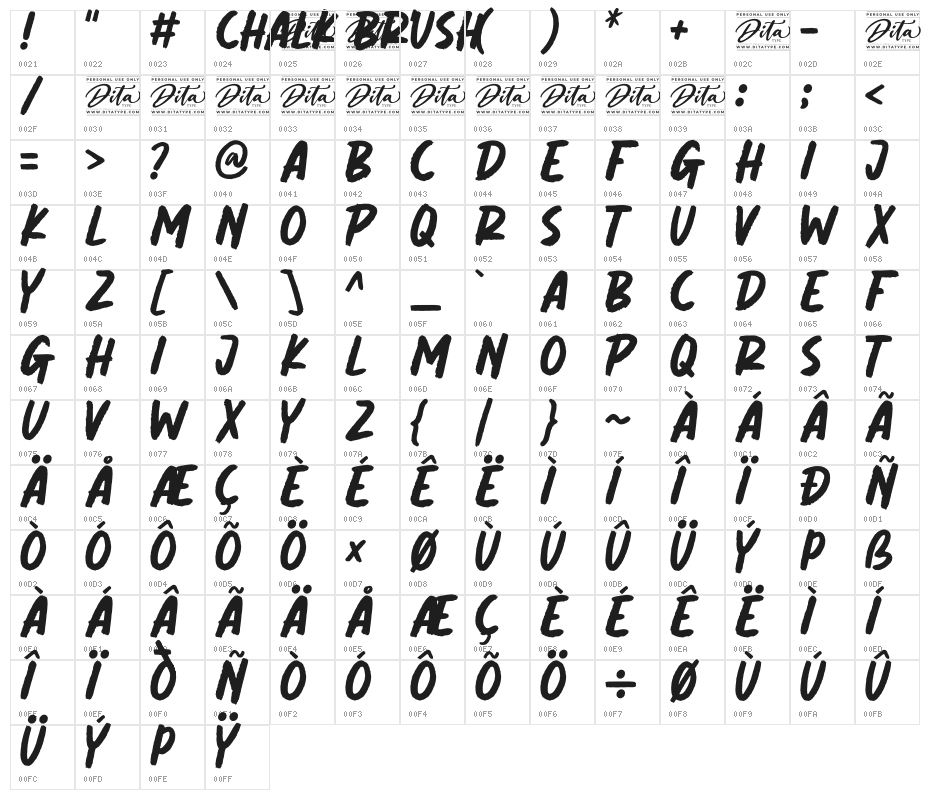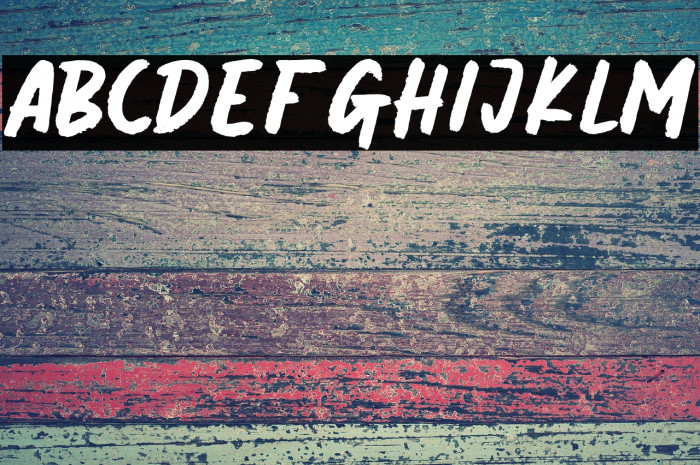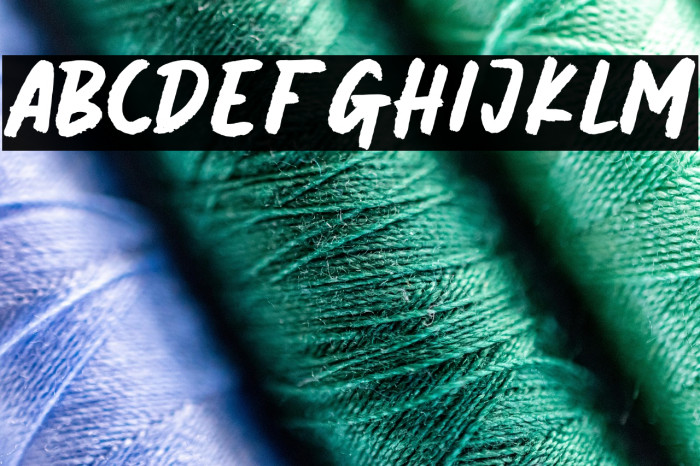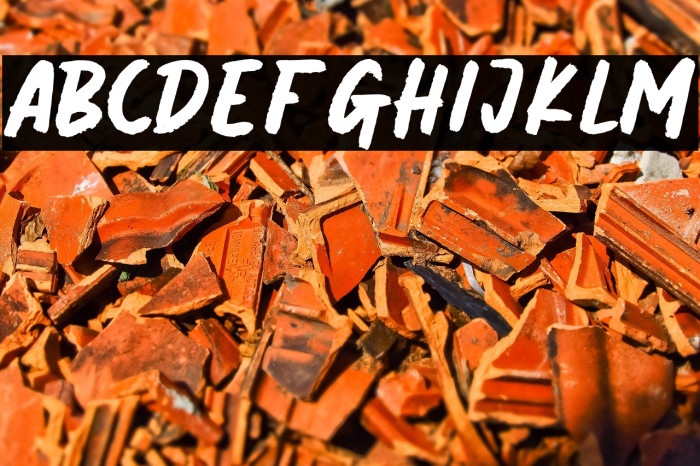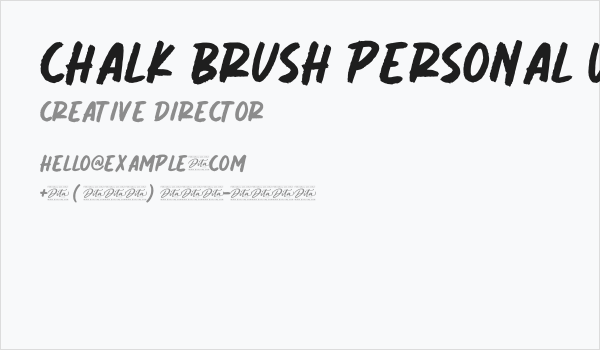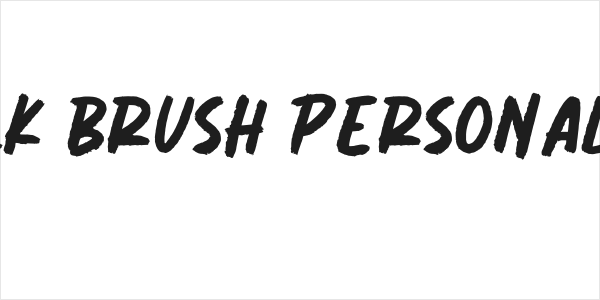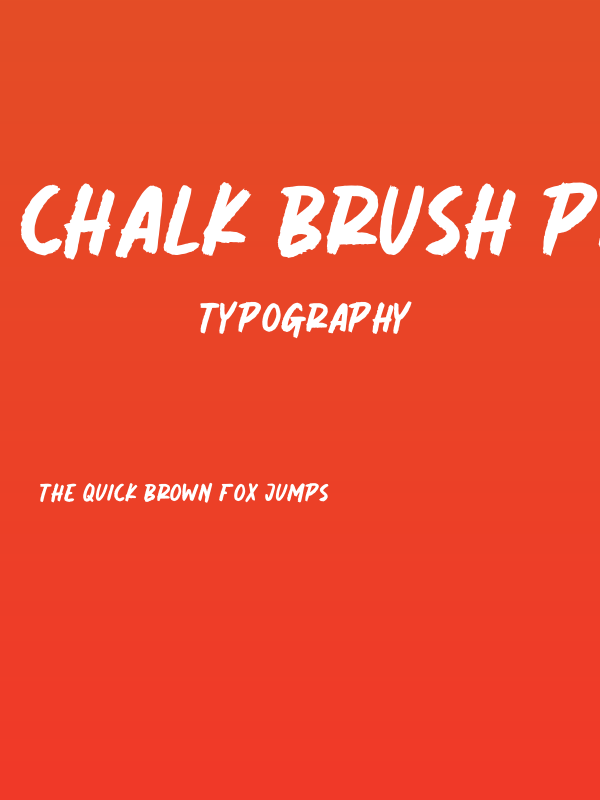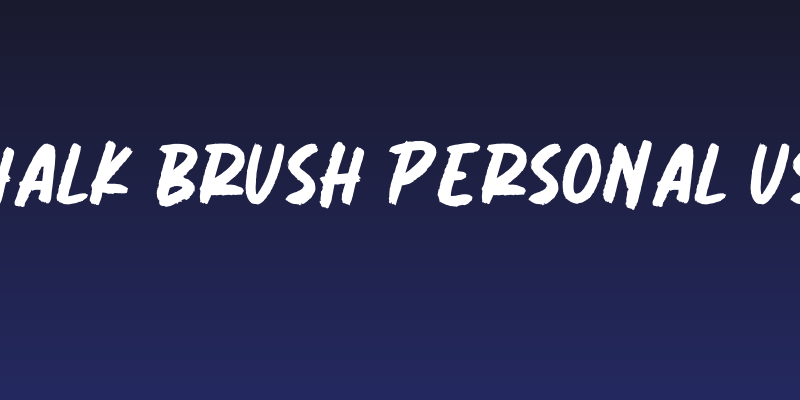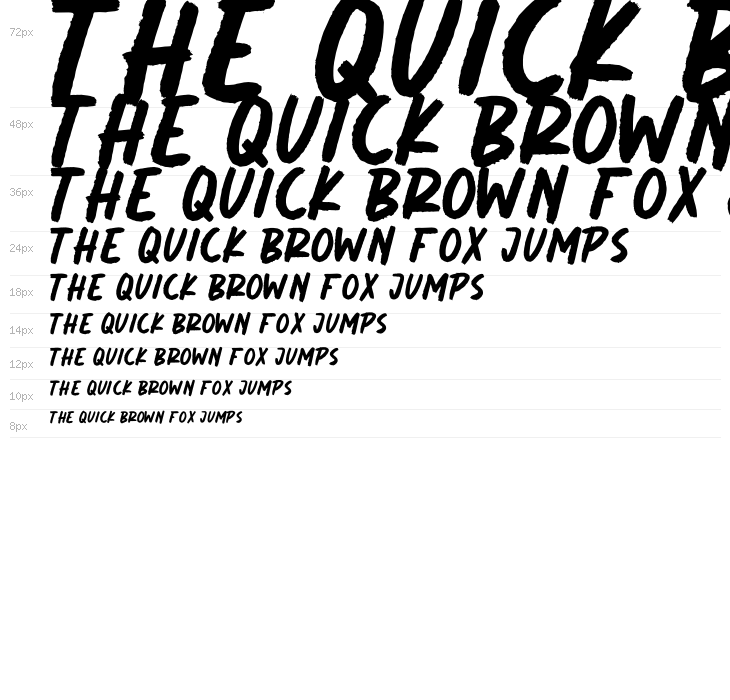
Chalk Brush Personal Use Font
Chalk Brush Personal Use Description
This font features a bold and dynamic brush style, reminiscent of chalk writing on a blackboard. The strokes are thick and expressive, giving a sense of movement and energy. Each character is uniquely crafted, with a slightly irregular baseline that enhances its hand-drawn appearance. The uppercase and lowercase letters maintain a consistent style, while the numbers and special characters complement the overall aesthetic. This font is ideal for projects that require a personal and artistic touch, such as posters, invitations, or branding materials.
| Proposed Projects | Perfect for posters, invitations, branding, and any project needing an artistic touch. |